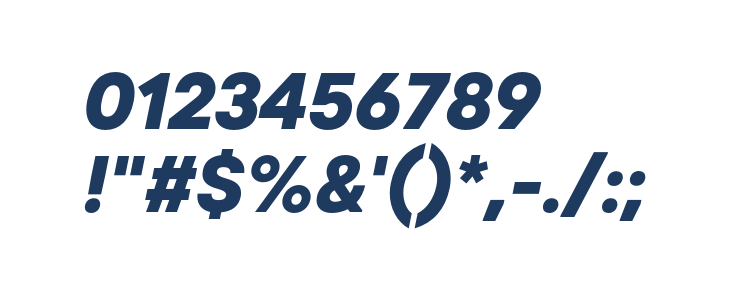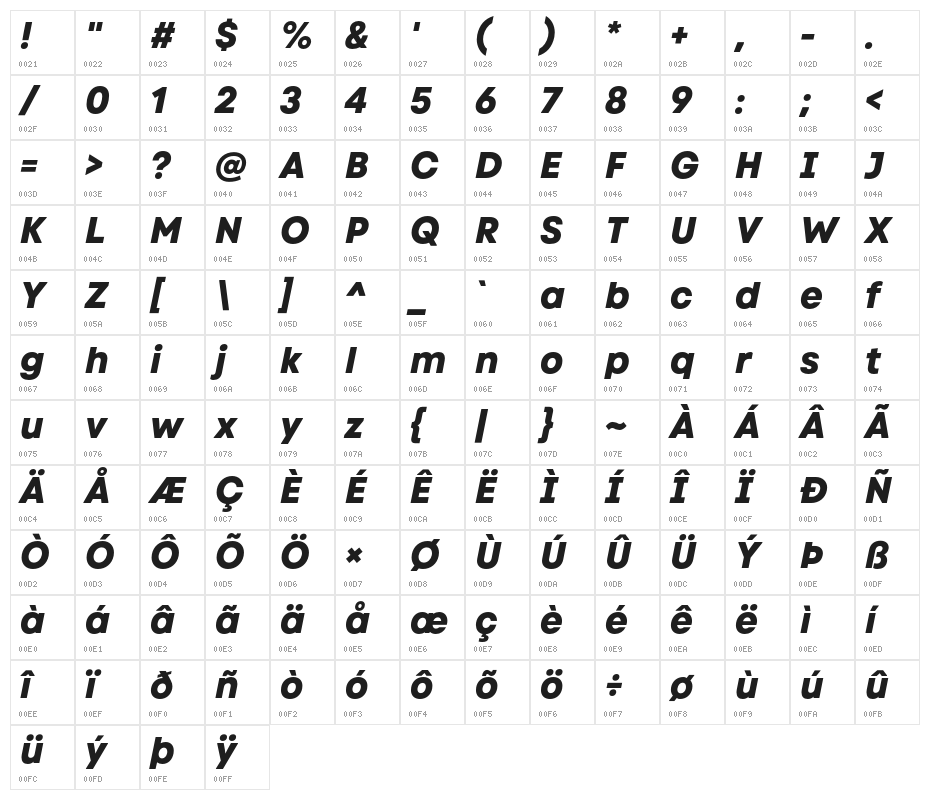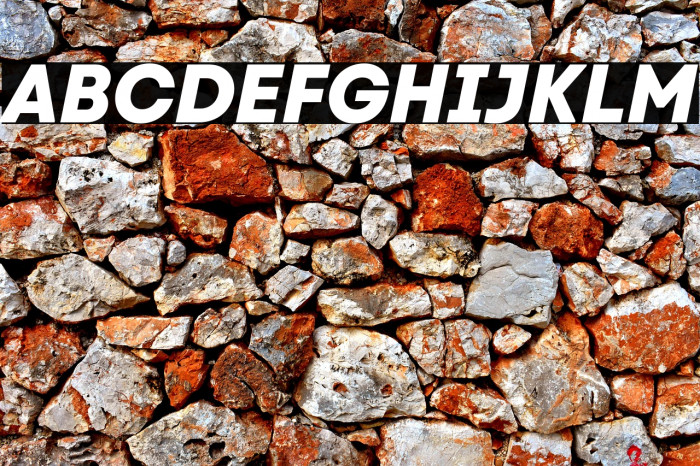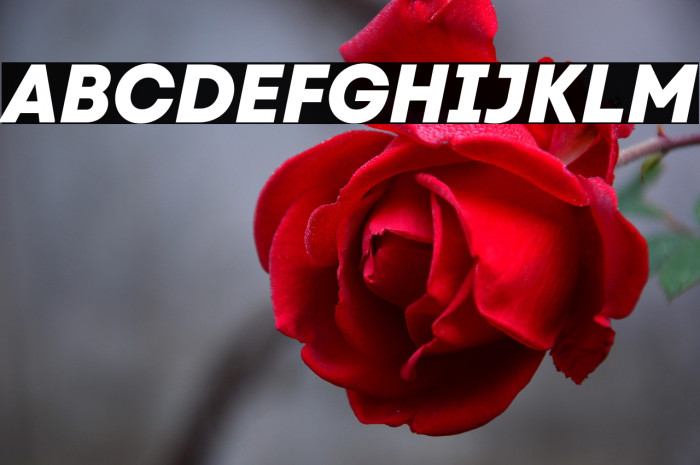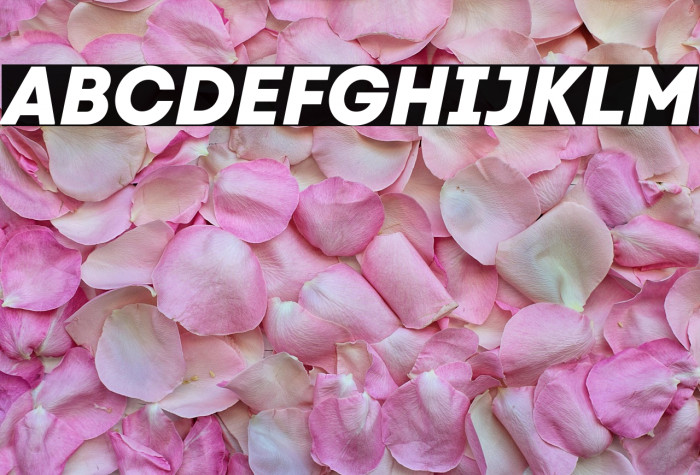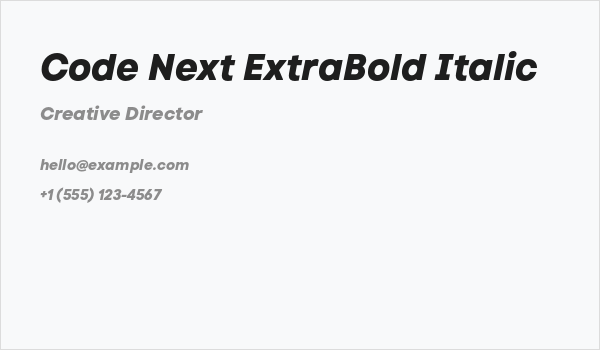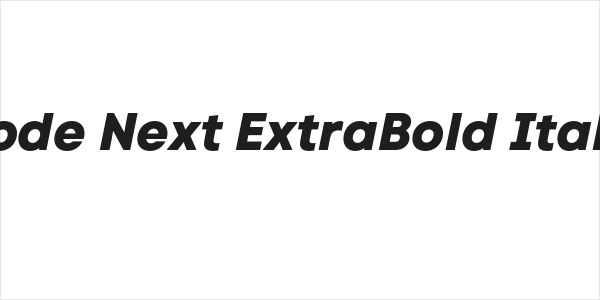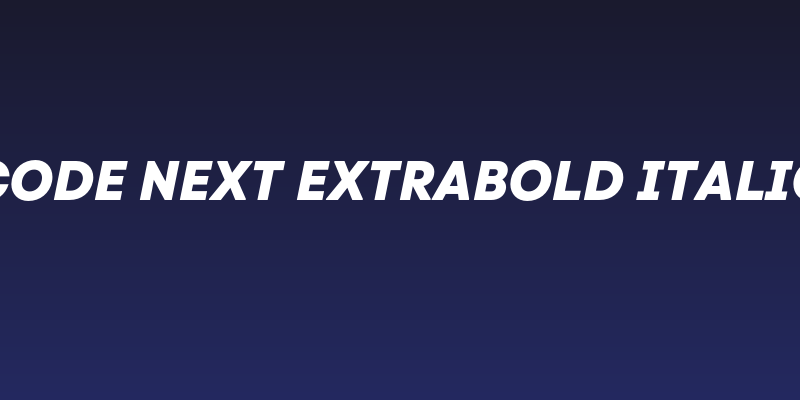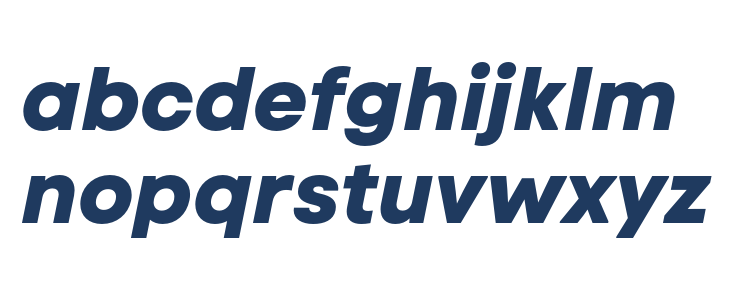
Code Next ExtraBold Italic Font
Code Next ExtraBold Italic Description
This font features a bold and italicized style, characterized by thick strokes and a pronounced slant. The uppercase and lowercase letters maintain a consistent weight, providing a strong visual impact. The numerals are equally bold, ensuring readability and emphasis. Special characters are designed with the same boldness, making them stand out. The overall design is modern and assertive, suitable for making statements in design projects. The font's boldness and italic nature give it a dynamic and energetic feel, perfect for attention-grabbing headlines and logos.
| Proposed Projects | Ideal for branding, advertising, headlines, and logo design where a strong, impactful presence is needed. |